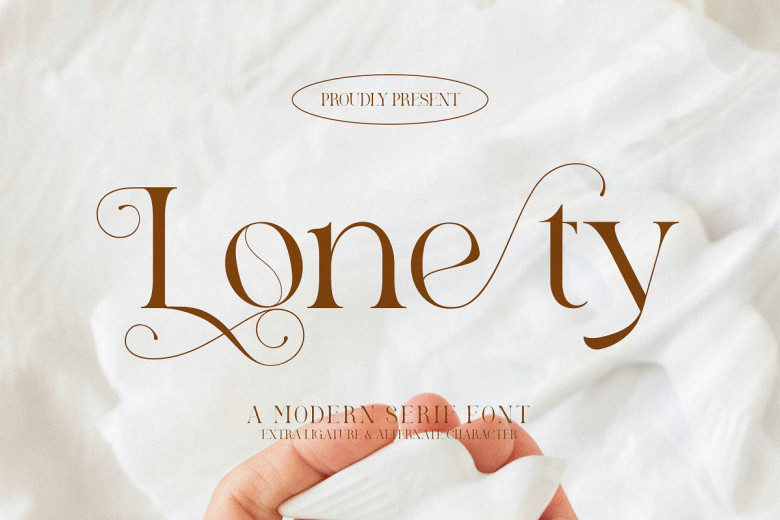
Lonety Font
Lonety is a modern and stylish serif font, combining straight lines with soft bends gives a modern look. Lonety’s clean, elegant profile looks great on editorials, branding, and websites — anything you create with a luxurious theme. Lonety is the best option if you need a modern and sleek typeface that evokes an air of elegance to your project.
Lonety Serif Font